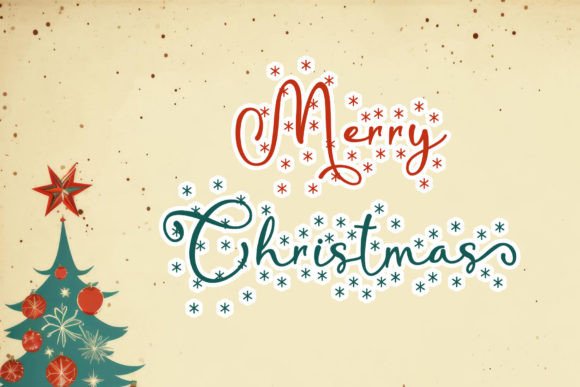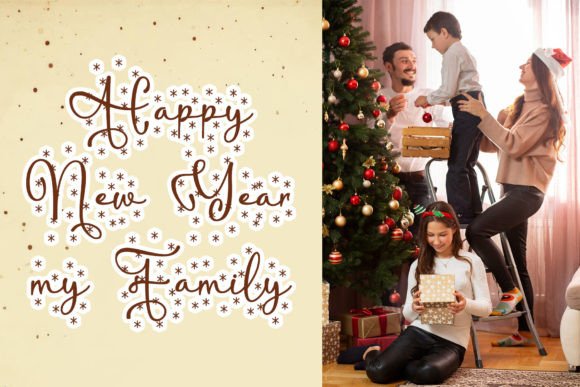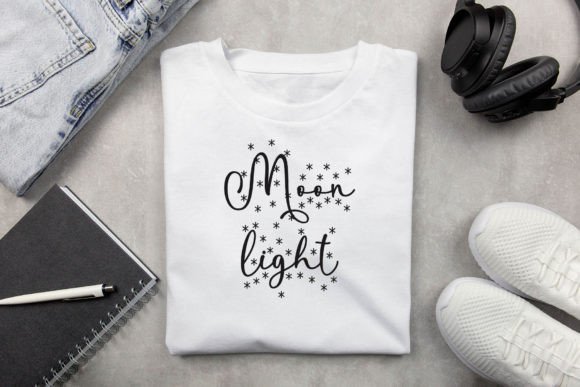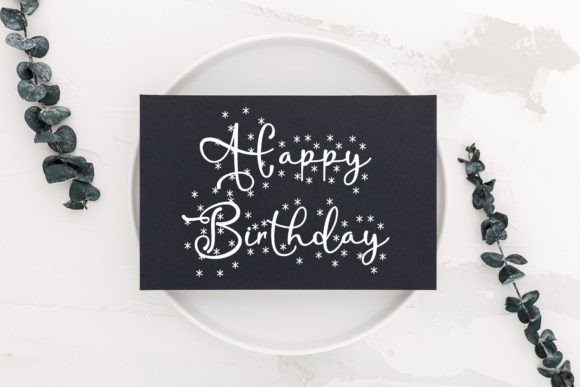
Introduction to Lightning Christmas Font Font
Fonts play a crucial role in design, and the Lightning Christmas Font font is a typeface that brings both character and versatility to any project. Whether you’re working on a branding project, a website, or a print design, the Lightning Christmas Font font offers a unique style that can elevate your work.
Lightning Christmas is a handwritten font featuring stars.
It will add an awesome to any design project that you wish to create This font is PUA encoded which means you can access all of the glyphs and swashes with ease.
Key Features of Lightning Christmas Font Font
Why Choose Lightning Christmas Font Font?
The Lightning Christmas Font font is more than just a typeface – it’s a design tool that helps you communicate your message with style and clarity. Its unique character set and versatile design make it suitable for a wide range of applications, from elegant invitations to bold headlines.
With its carefully crafted letterforms and balanced proportions, the Lightning Christmas Font font ensures readability and visual appeal across all mediums.
What makes Lightning Christmas Font font special?
The Lightning Christmas Font font stands out with its unique design, exceptional readability, and versatility across various design applications.